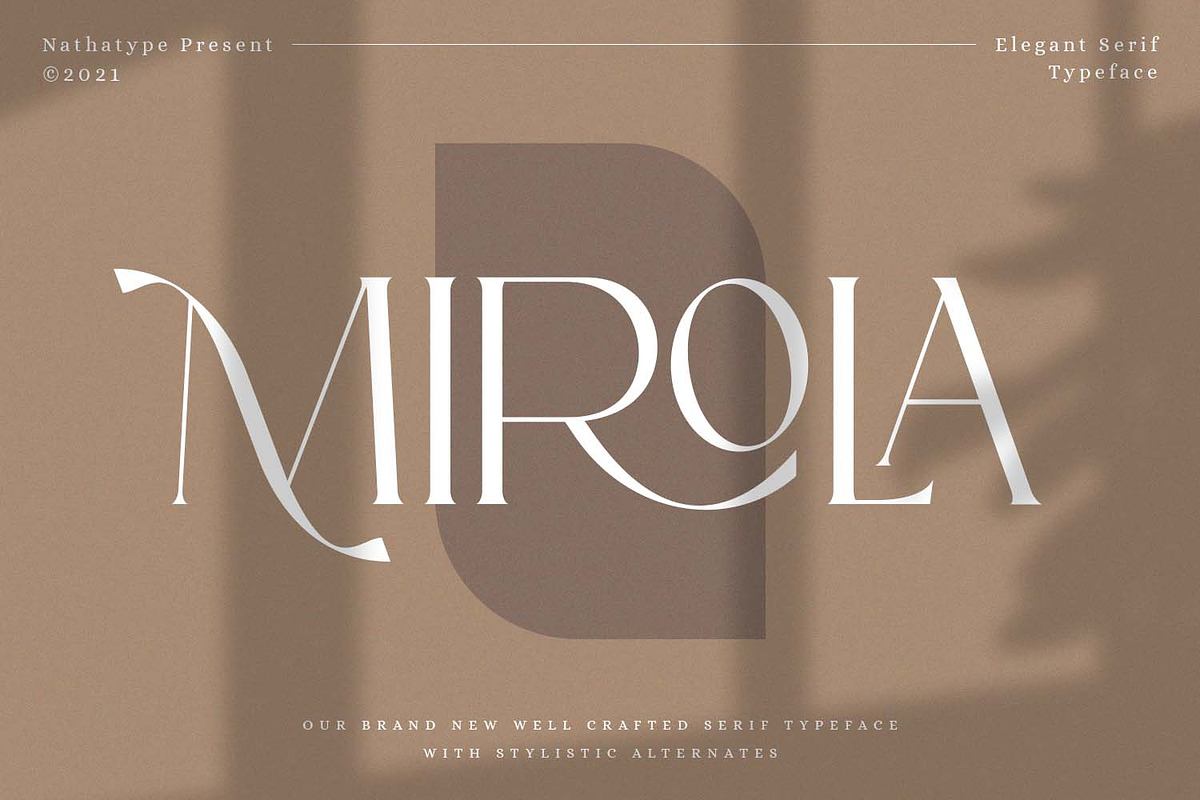
Mirola - Elegant Serif Font Free Download
Mirola - Elegant Serif Font Free Download is a sophisticated and timeless typeface designed to add a touch of class to your projects. With its sleek serif details and high-contrast strokes, Mirola brings an elegant, professional look to any design. Ideal for editorial layouts, logos, websites, and more, this font stands out with its refined style and readability.